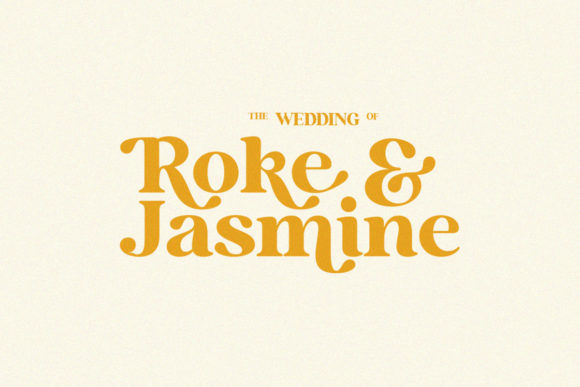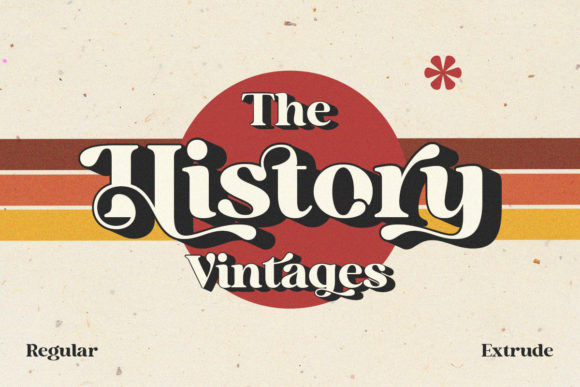
Holen Vintage Font
Holen Vintage is a stylish blend of classic serif fonts with modern serifs, bold curves giving it a traditional groovy vibe, luxury and versatility. It will look extraordinary in a variety of contexts. This font is PUA encoded which means you can access all of the glyphs and swashes with ease!